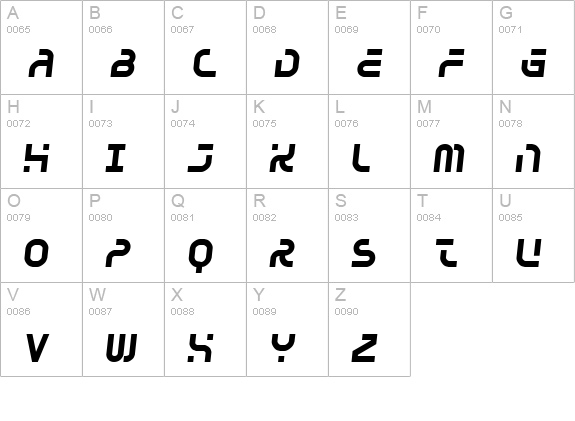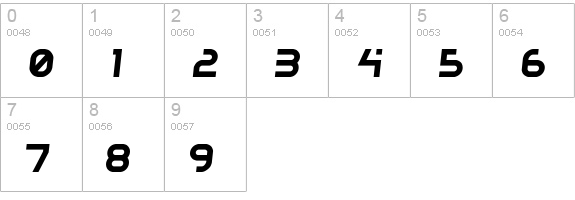
Greenhouse gas Font Details
The Greenhouse Gas font is a visually striking typeface that captures the essence of environmental awareness and sustainability. This unique font is designed to raise awareness about the pressing issue of greenhouse gas emissions and their impact on the planet. With its bold and impactful letterforms, Greenhouse Gas font is perfect for conveying messages about climate change, conservation, and eco-friendly practices. What's more, the Greenhouse Gas font is available for free download at FontsMarket.com. This means that anyone can easily access this powerful font and use it to spread important messages about environmental responsibility. Whether you're designing posters, banners, social media graphics, or any other visual content, the Greenhouse Gas font is sure to make a lasting impression. Download the Greenhouse Gas font today and join the movement towards a greener, more sustainable future. Let your words speak volumes about the urgent need to protect our planet for future generations.